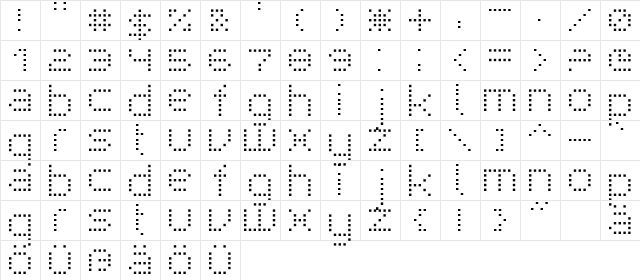
superpoint _rounded
Design Context for superpoint Typeface
superpoint uses gentle rounded endings to create a warm, inviting typographic personality — less corporate than geometric sans, more refined than playful display fonts.
Well-suited to UI design, mobile interfaces, and any brand that wants approachability without sacrificing clarity.
Font Pairing: Pairs well with a rounded or humanist sans for body copy, maintaining the friendly tone without relying on superpoint to carry extended reading.
Pro Tip: Use superpoint for UI elements, app interfaces, and anywhere a friendly, approachable tone needs to be maintained without sacrificing clarity.